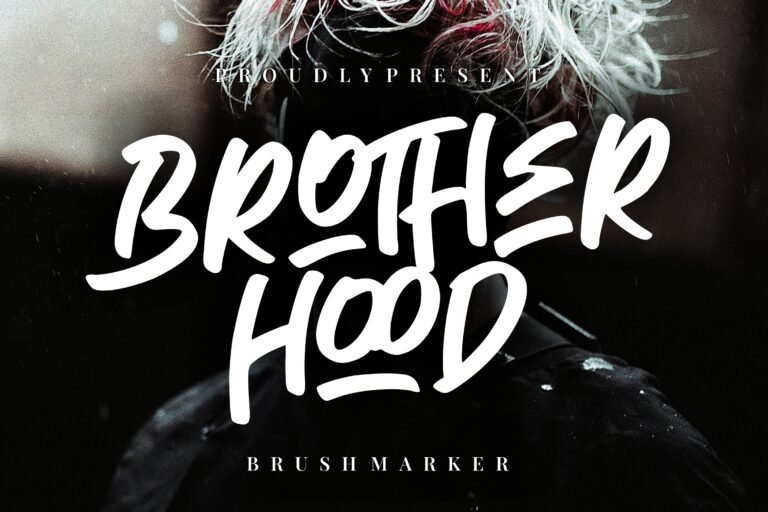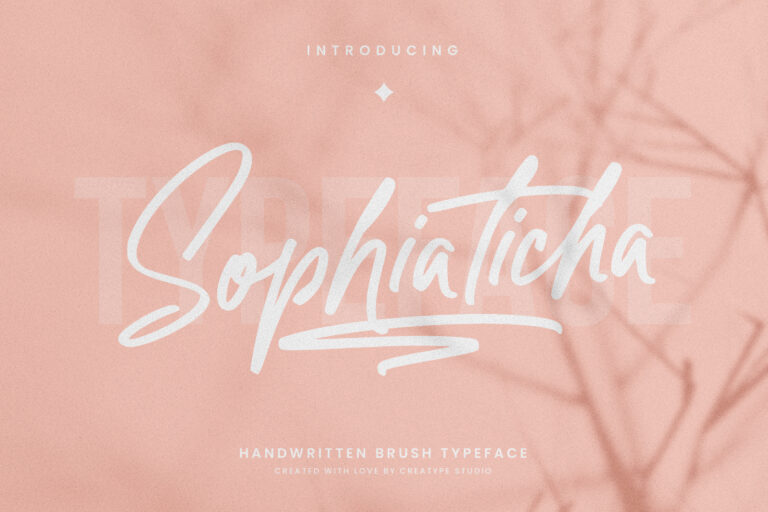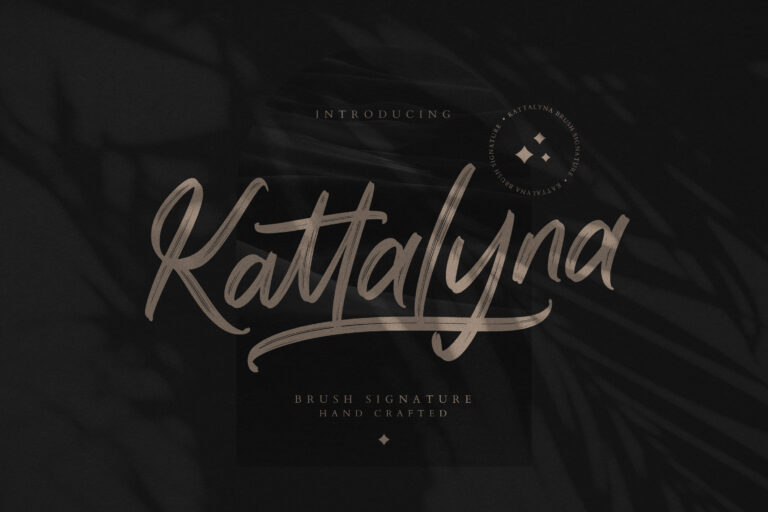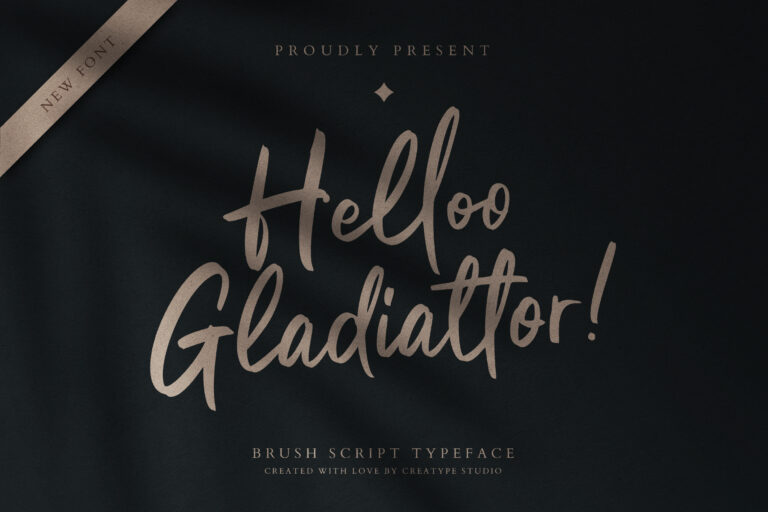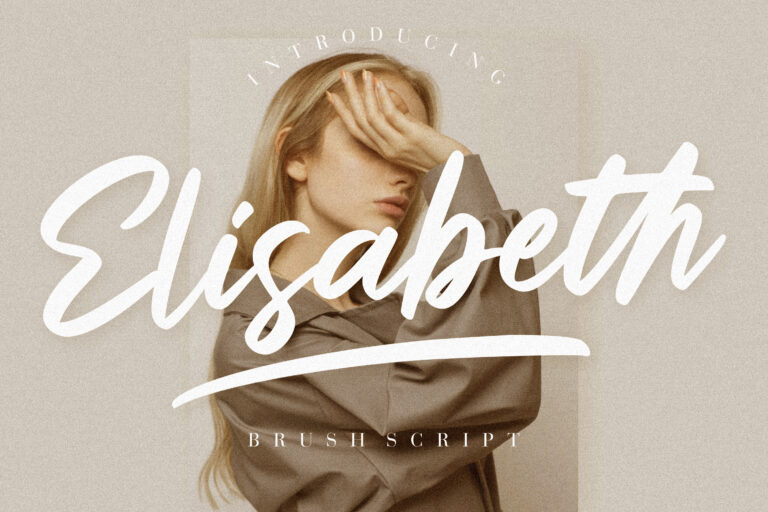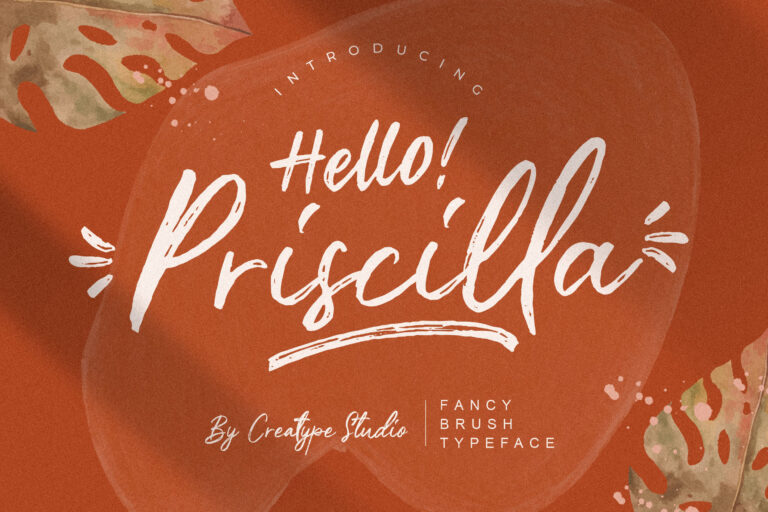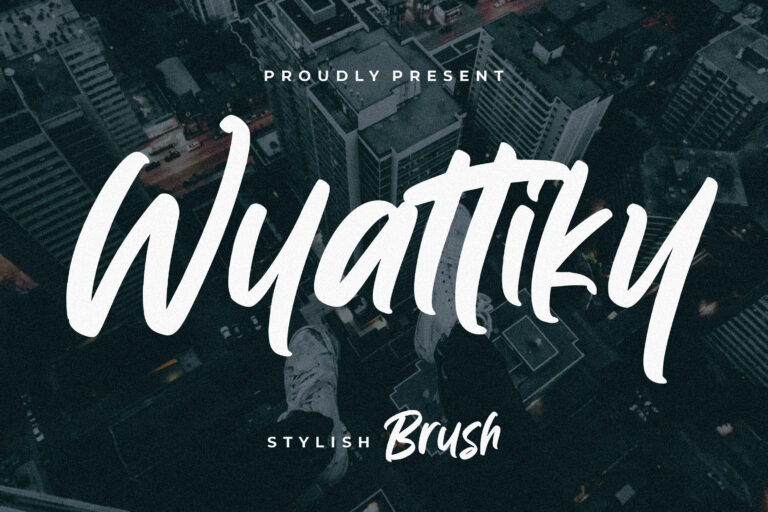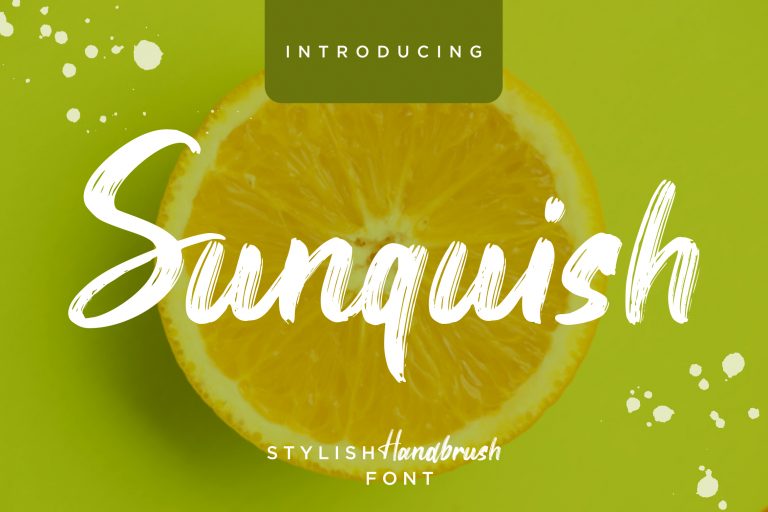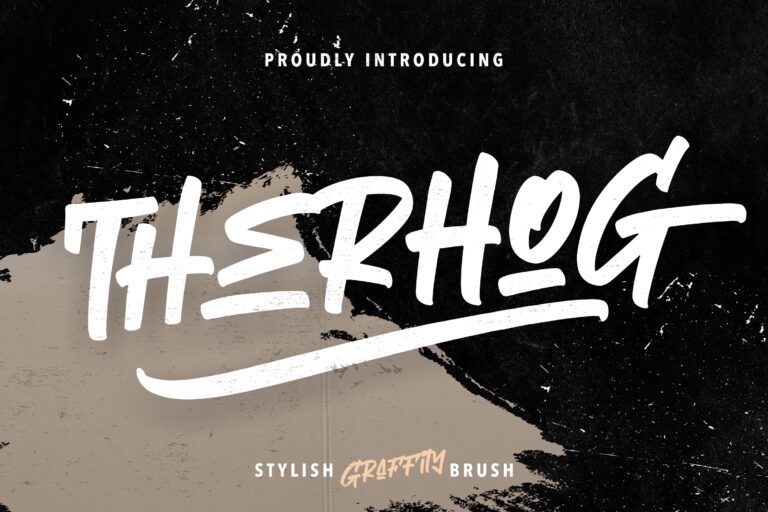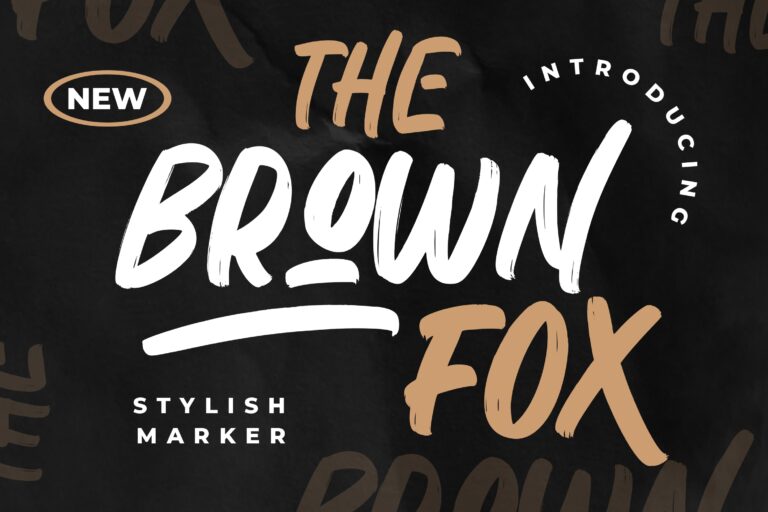
Top 17 Marker Fonts Every Designer Should Try in 2025
Marker fonts are popular in graphic design for their bold, casual, and expressive handwritten style. Research shows that handwritten fonts can make designs feel more personal, authentic, and engaging.
Whether you’re a graphic designer, content creator, or brand owner, marker fonts are perfect for adding personality and energy to logos, posters, and social media graphics. In this article, we’ll explore 17 of the best choices to make your designs shine.
Key Takeaways:
• Marker fonts add personality by bringing boldness, creativity, and a personal touch to designs.
• You can match the font style with the project’s mood, audience, and purpose.
• Marker fonts are ideal for branding, packaging, posters, stationery, and social media graphics.
17 Marker Fonts That Bring Your Designs to Life
Below are 17 of the best choices of fonts that add boldness, creativity, and a personal touch to your designs. Keep reading to find your favorite!
1. Brotherhood
The Brotherhood Brush Marker typeface is a great way to give your work a bold, timeless look. It features textured strokes that suit well for man-style products, nature-inspired coffee brands, or outdoor adventure projects.
2. The Brown Fox
Use the powerful, expressive strokes of Megaloman, a brush marker typeface, to make your ideas come to life. This font works well for adding a modern, fresh look to food packaging and men’s apparel by bringing a lively and energetic vibe.
3. Megaloman
Megaloman transforms your ideas into striking visuals through its bold and expressive strokes. This font enhances fashion branding, dessert product packaging, and any project that benefits from a fresh, modern aesthetic.
4. Sticky Marker
Sticky Marker features a whimsical monoline style that brings charm and playfulness to your designs. Shining as one of the marker fonts for creative design, it has a cheerful, handwritten look that works wonderfully for kids’ products, stationery, invitations, and any project needing a joyful, energetic touch.
5. Jacklyn
Jacklyn is a smooth brush-style marker font with clean, natural strokes. It works well for breakfast menus, casual outfit branding, or personal name cards, adding a friendly, approachable touch.
6. Gasthyon
Adding a bold, scratch-style brush marker typeface is always the winning choice for projects like custom coffee branding, posters for music festivals, or labels for hiking equipment. Gasthyon brings a raw, energetic feel with rugged textures, giving your designs an adventurous look.
7. Ethernal
The Ethernal font is a modern serif with elegant curves and a sophisticated style. It adds a classy, artistic touch to jazz night festival posters, making your designs feel refined, stylish, and visually captivating.
8. Samantha
Samantha features a unique script with natural, flowing strokes that bring a memorable and cozy feel to your designs, making it a standout choice among the best marker fonts for coffee menus and decoration magazines.
9. Rintjany
In Rintjany, a relaxing, organic style is combined with fashionable brushstrokes. This font adds a cheerful, approachable touch to restaurant menus, casual apparel, and any project needing an easygoing style.
10. Sophiatica
10. Sophiaticha
Sophiaticha sparkles with charm! Its smooth, bold brush strokes feel lively and stylish, while playful swashes add a fun, feminine touch for women’s fashion collections.
11. Kattalyna
This font not only serves you with the unique brush detail, but it also gives you a modern elegant look. It adds a stylish, refined touch, making it a great choice for Glamour’s jewelry designs, luxury branding, and any project that needs sophisticated visuals.
12. Hello Gladiattor
12. Helloo Gladiattor
With its lively brush strokes, Hello Gladiattor adds flair and personality to photography logos, beauty or fashion brands, and other creative projects, making it a go-to choice among marker fonts for graphic designers.
13. Elisabeth
Elisabeth features delicate brush strokes and gentle scratches, creating a handcrafted look that enhances bags, fashion collections, and projects with a stylish, personal touch.
14.  Priscilla
14. Priscilla
If you enjoy brush fonts that exude luxury and femininity, Priscilla is worth choosing. Its natural and sophisticated style brings a professional touch, especially for florists, boutiques, and organic cream branding.